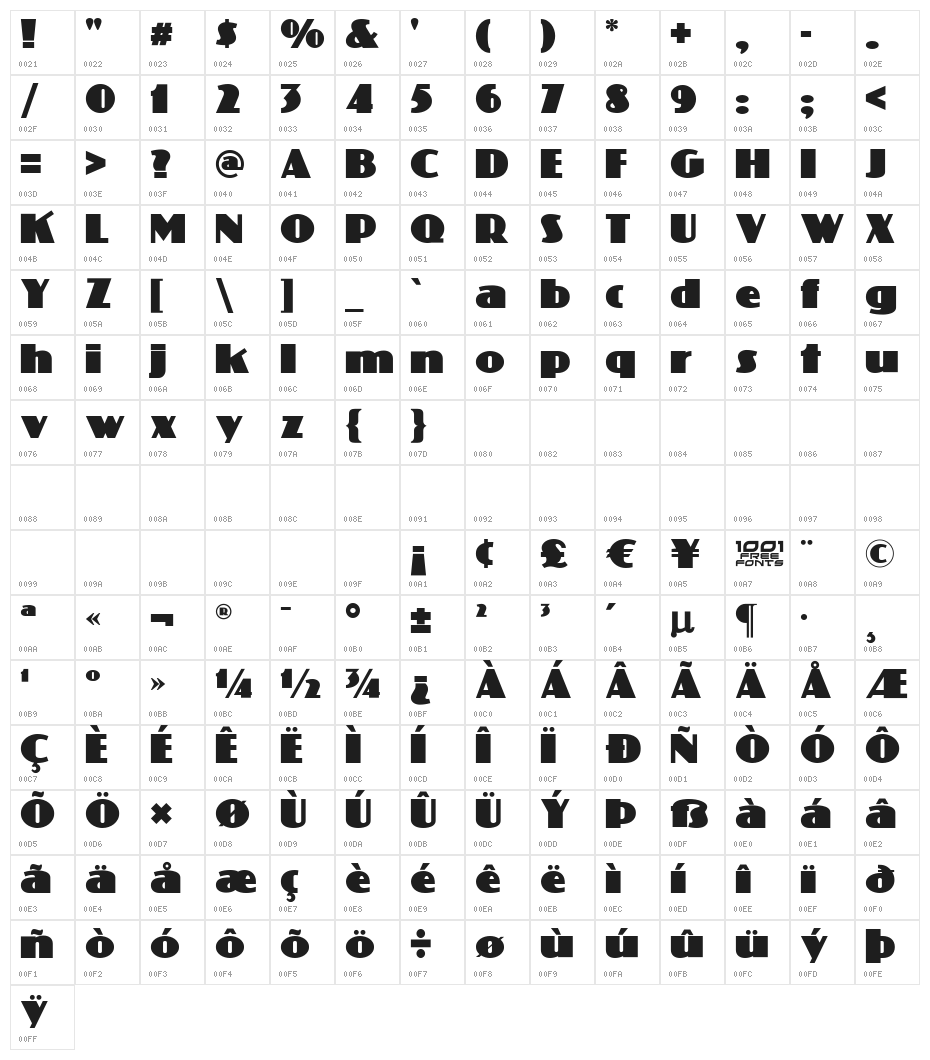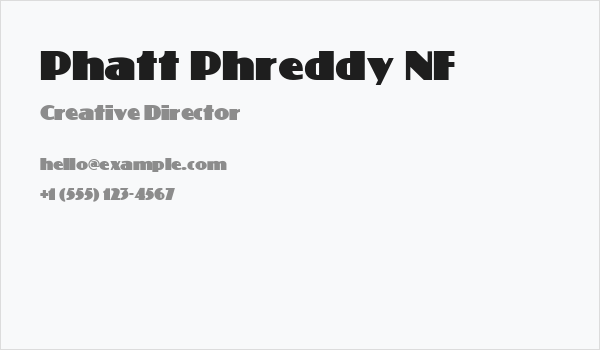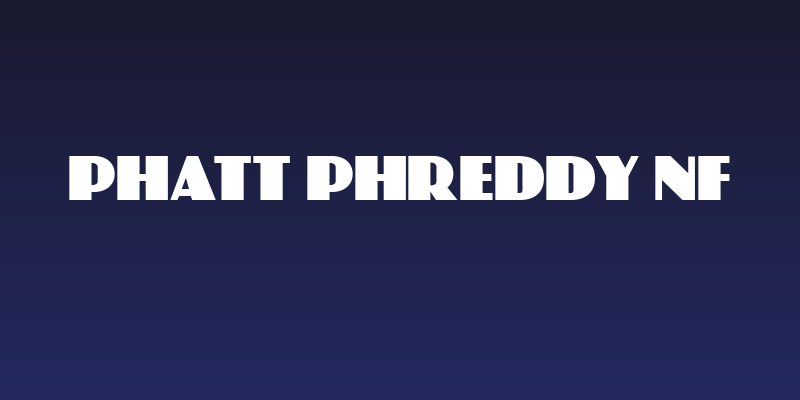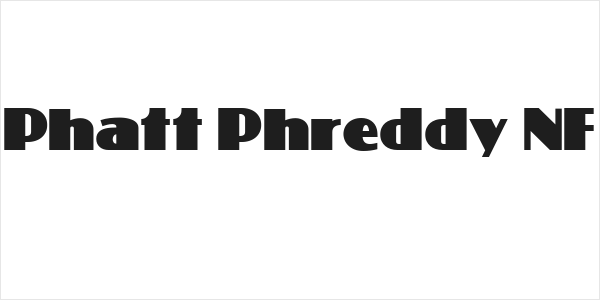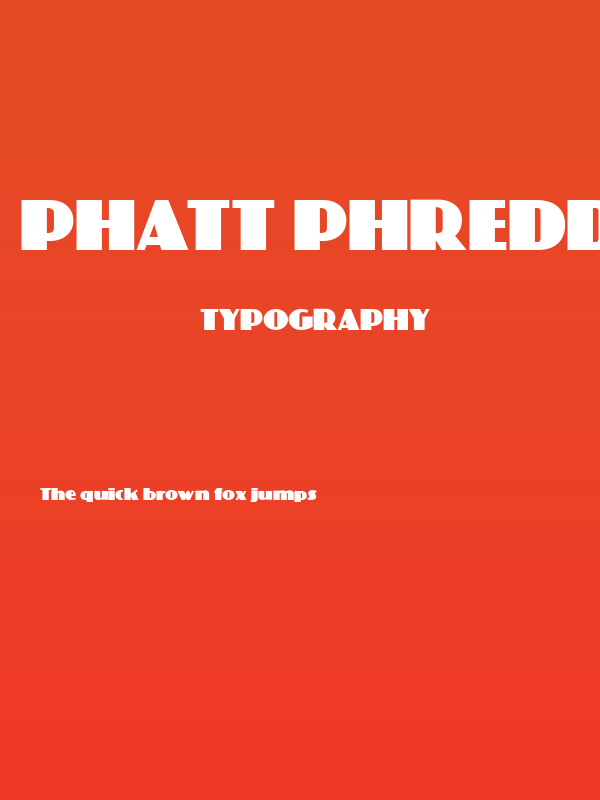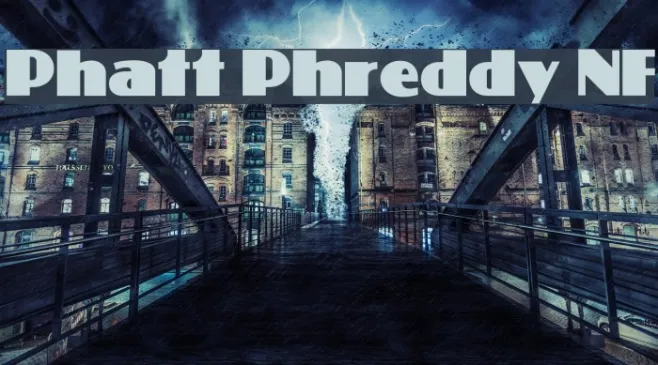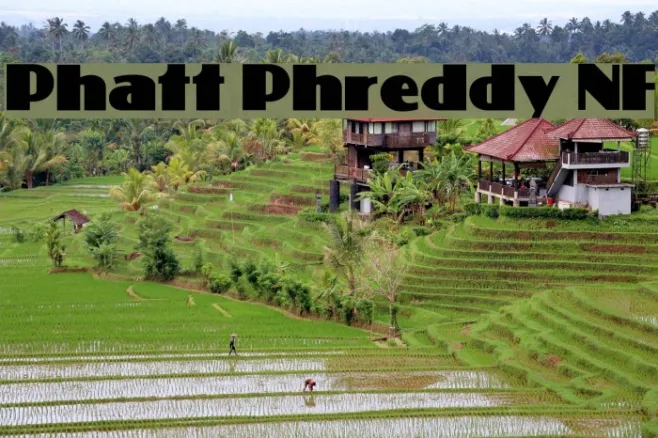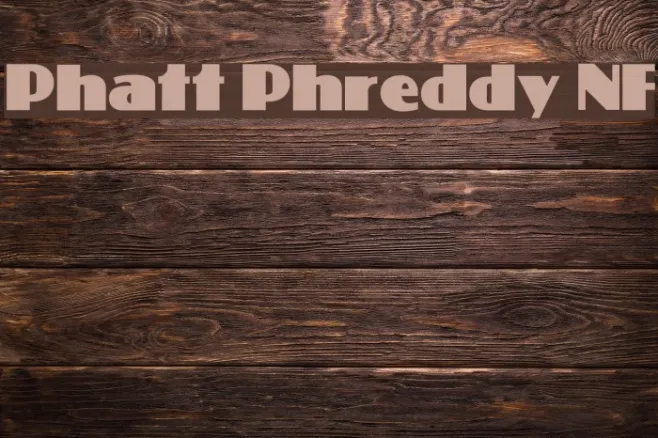
Phatt Phreddy NF Font
Phatt Phreddy NF Description
This bold and striking font features thick, block-like characters with a strong presence. The uppercase letters are particularly wide and imposing, while the lowercase letters maintain a consistent weight and style. The numbers are equally bold, ensuring they stand out in any context. Special characters are designed with the same robust style, making them perfect for attention-grabbing designs. The overall appearance is modern and impactful, suitable for projects that require a strong visual statement.
| Proposed Projects | Ideal for headlines, posters, branding, and any design requiring a bold statement. |